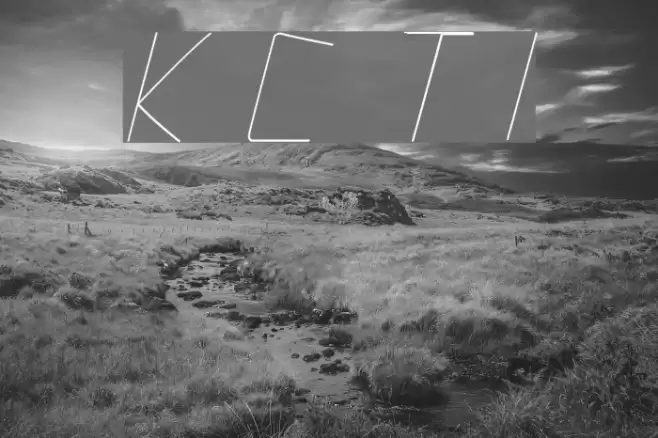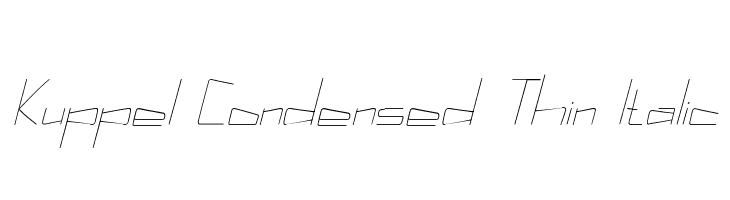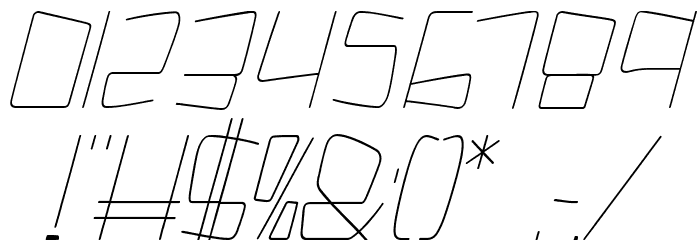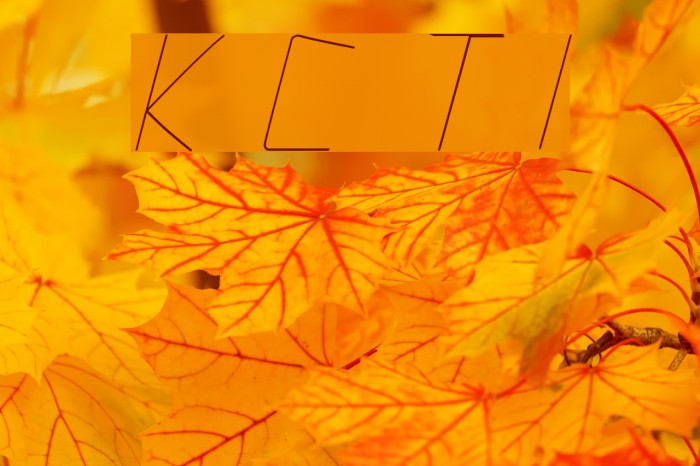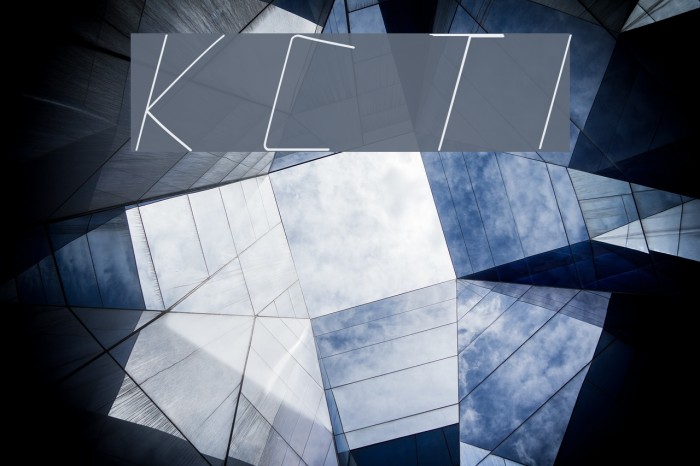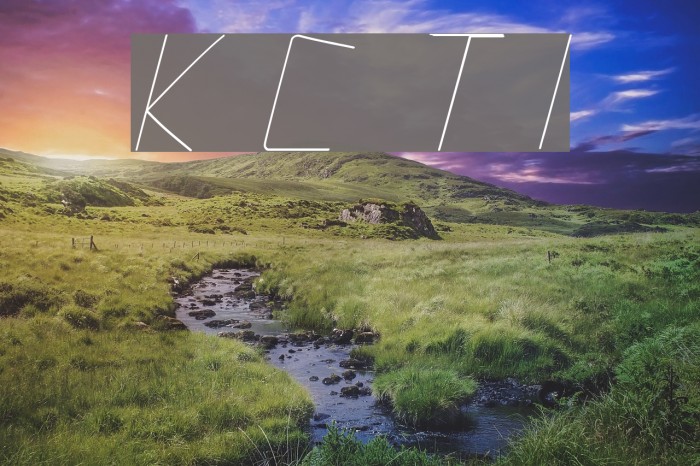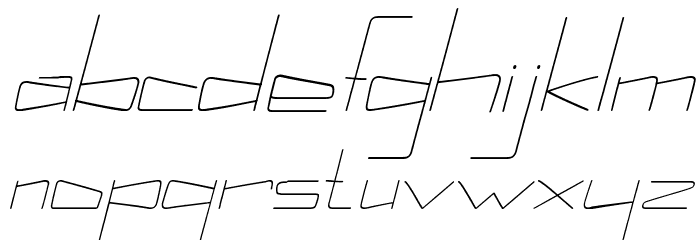
Kuppel Condensed Thin Italic Font
Kuppel Condensed Thin Italic Description
This font features a sleek, modern design with a condensed and thin structure. The italic style adds a dynamic and forward-leaning appearance, enhancing its contemporary feel. Each character is crafted with precision, showcasing clean lines and minimalistic aesthetics. The uppercase and lowercase letters maintain a consistent height, contributing to a uniform look. Numbers and special characters are designed to match the overall style, ensuring a cohesive visual experience. This font is ideal for projects that require a modern and sophisticated touch.
A modern, condensed, thin italic font with clean lines and a sleek design from Uncategorized fonts.
- Proposed Projects: Ideal for branding, editorial design, modern websites, and minimalist posters.